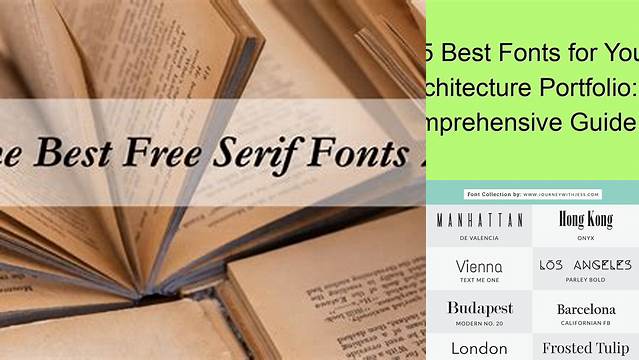
Best Modern Fonts To Elevate Your Designs
Hey guys! Are you on the hunt for the best modern fonts to elevate your designs? Look no further! In today's design landscape, typography plays a crucial role in conveying your message and creating a lasting impression. Choosing the right font can make or break your project, whether it's a website, branding materials, or a presentation. This guide dives deep into the world of modern fonts, exploring various styles, trends, and practical tips to help you make the perfect choice. We'll cover everything from sans-serif to serif fonts, display fonts to script fonts, and even provide real-world examples to inspire your next project. So, buckle up and get ready to discover the best modern fonts that will transform your designs!
When we talk about best modern fonts, we're not just talking about what's popular right now. We're talking about fonts that embody the characteristics of modern design: clean lines, geometric shapes, and a sense of simplicity and elegance. These fonts often have a minimalist aesthetic, making them incredibly versatile and suitable for a wide range of applications. Think about brands like Apple, Google, and Nike – their typography choices reflect a modern sensibility that's both functional and visually appealing. The fonts they use are not only legible but also contribute to the overall brand identity, conveying a sense of innovation and sophistication. That’s the power of a well-chosen modern font! Choosing the right font is more than just picking something that looks good. It's about understanding the message you want to convey and selecting a typeface that aligns with your brand’s personality. For example, a tech startup might opt for a clean, sans-serif font like Montserrat or Open Sans to project a modern and approachable image. On the other hand, a luxury brand might choose a more elegant serif font like Playfair Display to evoke a sense of sophistication and tradition. Understanding the nuances of different font styles is crucial to making informed decisions that will enhance your design and resonate with your target audience. So, let’s dive deeper into the world of modern typography and explore the various categories and examples that will help you elevate your designs.
What Makes a Font "Modern?"
So, what exactly makes a font "modern?" It's a great question, guys, and the answer is a bit nuanced. Modern fonts generally embody characteristics that reflect contemporary design principles, such as simplicity, functionality, and a clean aesthetic. Unlike traditional fonts that might have ornate details and elaborate serifs, modern fonts often feature clean lines, geometric shapes, and a minimalist approach. This isn't to say that all modern fonts look the same – there's a wide variety of styles within the modern category, each with its unique personality and application.
One key characteristic of modern fonts is their emphasis on legibility. In today's digital age, where content is consumed across various screens and devices, readability is paramount. Modern fonts are designed to be easily readable at different sizes and in different contexts, whether it's on a website, a mobile app, or a printed brochure. This focus on functionality is a hallmark of modern design, where form follows function. Another aspect of modern fonts is their versatility. The best modern fonts are adaptable and can be used in a wide range of applications, from branding and marketing materials to editorial design and user interfaces. They often come in various weights and styles, allowing designers to create visual hierarchy and add emphasis where needed. For example, a font family like Roboto or Lato offers multiple weights, from thin to black, making it ideal for creating a consistent and cohesive design system. Furthermore, modern fonts often embrace technological advancements. Many modern typefaces are optimized for screen display, with features like hinting and subpixel rendering that ensure crisp and clear text even on low-resolution screens. Type designers are also experimenting with variable fonts, which allow for greater flexibility and customization in font styles. Variable fonts can adapt to different design needs, offering a wide range of weights, widths, and other parameters within a single font file. This not only reduces file sizes but also provides designers with more control over typography. Ultimately, what makes a font modern is its ability to communicate effectively in today’s world. It’s about balancing aesthetics with functionality and creating typefaces that are both visually appealing and highly legible. So, whether you’re designing a website, creating a logo, or crafting marketing materials, understanding the characteristics of modern fonts will help you make informed choices that elevate your design and resonate with your audience.
Popular Categories of Modern Fonts
Alright, let's dive into the popular categories of modern fonts, guys! Knowing these categories will help you narrow down your choices and find the perfect typeface for your project. We'll cover the main categories, including sans-serif, serif, display, and script fonts, each with its unique characteristics and best uses.
Sans-serif fonts are arguably the most popular category of modern fonts. The term "sans-serif" means "without serifs," referring to the small decorative strokes at the end of letterforms that are absent in these fonts. Sans-serif fonts are known for their clean lines, geometric shapes, and overall simplicity, making them highly legible and versatile. They are often used for body text, headlines, and user interfaces, and are a staple in modern design. Some of the best modern fonts in the sans-serif category include Helvetica, Arial, Open Sans, Roboto, and Montserrat. Helvetica, for example, is a classic sans-serif font that has been used extensively in corporate branding and editorial design for decades. Its neutral and clean appearance makes it highly adaptable to various contexts. Open Sans, on the other hand, is a humanist sans-serif font designed by Steve Matteson, optimized for readability across print, web, and mobile interfaces. Its open forms and neutral-yet-friendly appearance make it a popular choice for websites and apps. Roboto, a font family developed by Google, is another excellent example of a modern sans-serif typeface. It features a dual nature, with geometric forms and friendly curves, making it suitable for both body text and headlines. Montserrat, designed by Julieta Ulanovsky, is a geometric sans-serif font inspired by the urban typography of Buenos Aires. Its bold and clean letterforms make it a great choice for logos, headlines, and branding materials. When choosing a sans-serif font, consider the overall tone and message of your design. If you’re aiming for a clean, minimalist look, a geometric sans-serif like Futura or Gotham might be a good choice. If you want a more friendly and approachable feel, a humanist sans-serif like Open Sans or Lato might be more suitable. And if you need a versatile font that works well in a variety of applications, a classic like Helvetica or Arial is always a reliable option. In short, sans-serif fonts are a cornerstone of modern typography, offering a wide range of styles and personalities to suit any design need.
Next up, we have serif fonts! These typefaces are characterized by the small decorative strokes, or serifs, at the ends of the letterforms. While sans-serif fonts are often associated with a modern, minimalist aesthetic, serif fonts can also be incredibly modern, particularly when used in innovative and contemporary ways. The best modern fonts in the serif category often blend traditional elements with a modern sensibility, resulting in elegant and sophisticated typefaces. Serif fonts are often used in editorial design, branding, and print materials, where their classic appearance can add a touch of sophistication. Some popular modern serif fonts include Playfair Display, Merriweather, and Lora. Playfair Display, designed by Claus Eggers Sørensen, is an elegant serif font with a high contrast and delicate serifs. It’s often used for headlines, titles, and other display purposes, adding a touch of luxury and refinement to any design. Merriweather, designed by Sorkin Type Co, is a serif font family created specifically for on-screen reading. Its slightly condensed letterforms and sturdy serifs make it highly legible in digital environments, making it a great choice for body text on websites and blogs. Lora, designed by Olga Karpushina, is a well-balanced serif font with roots in calligraphy. Its contemporary feel makes it versatile enough to be used in both body text and headlines. When choosing a serif font, consider the overall tone and style of your project. A high-contrast serif like Playfair Display can be perfect for creating a sophisticated and elegant look, while a more robust serif like Merriweather is better suited for body text that needs to be highly readable. Modern serif fonts can also be effectively paired with sans-serif fonts to create a visual hierarchy and add interest to a design. For example, you might use a serif font for your headlines and a sans-serif font for your body text, or vice versa. The key is to find fonts that complement each other in terms of style and weight. So, while sans-serif fonts often get the spotlight in modern design, serif fonts have a lot to offer as well. By understanding the nuances of different serif styles, you can choose typefaces that add character, elegance, and readability to your projects.
Display Fonts
Let's move on to display fonts, guys! These are the attention-grabbers of the font world. Display fonts are designed to be used at larger sizes, such as in headlines, titles, and logos. They often have unique and distinctive characteristics that make them stand out and create a strong visual impact. The best modern fonts in the display category can range from bold and geometric to elegant and script-like, offering a wide variety of styles to suit any design project. Unlike body text fonts, which prioritize readability, display fonts prioritize visual appeal and personality. They are meant to make a statement and capture the viewer's attention. Some popular modern display fonts include Bebas Neue, Montserrat Alternates, and Oswald. Bebas Neue is a sleek and modern sans-serif display font that has become incredibly popular for headlines and posters. Its tall and narrow letterforms give it a contemporary feel, making it a great choice for projects that need to convey a sense of modernity and sophistication. Montserrat Alternates, a variation of the popular Montserrat font, offers a more stylized and distinctive look. It includes alternate glyphs and characters that add personality and visual interest, making it ideal for branding and logo design. Oswald, designed by Vernon Adams, is a reworked classic sans-serif typeface that was initially designed for digital screens. Its condensed letterforms and bold appearance make it a great choice for headlines and titles, particularly in web design. When choosing a display font, consider the overall message and tone of your design. A bold and geometric display font might be perfect for a tech company or a modern brand, while a more elegant and script-like display font could be better suited for a luxury brand or a creative project. It's also important to ensure that your display font pairs well with your body text font. The two should complement each other, creating a cohesive and balanced design. In general, display fonts are a crucial tool for creating visual impact and grabbing attention. By choosing the right display font, you can add personality, style, and memorability to your designs.
Script Fonts
And finally, let’s talk about script fonts! Script fonts are designed to mimic handwriting, giving your designs a personal and elegant touch. These fonts come in a variety of styles, from formal and calligraphic to casual and playful. The best modern fonts in the script category can add a touch of sophistication, warmth, or creativity to your projects, making them a versatile choice for a wide range of applications. Script fonts are often used in wedding invitations, greeting cards, logos, and branding materials, where their elegant and handcrafted appearance can create a unique and memorable impression. However, it’s important to use script fonts sparingly and in the right context, as they can sometimes be difficult to read if overused. Some popular modern script fonts include Pacifico, Brush Script MT, and Lobster. Pacifico, designed by Vernon Adams, is a casual and friendly script font inspired by the American surf culture of the 1950s. Its flowing and rounded letterforms give it a playful and approachable feel, making it a great choice for logos, posters, and social media graphics. Brush Script MT is a classic script font that mimics the look of brush lettering. Its bold and dynamic strokes make it a popular choice for headlines, titles, and invitations. Lobster, designed by Impallari Type, is a bold and condensed script font with a vintage feel. Its unique and distinctive letterforms make it a great choice for branding and logo design, particularly for projects that aim to evoke a sense of nostalgia or retro style. When choosing a script font, consider the overall tone and message of your design. A formal and elegant script font might be perfect for a wedding invitation or a luxury brand, while a more casual and playful script font could be better suited for a greeting card or a children’s book. It’s also important to ensure that your script font is legible, particularly at smaller sizes. Avoid using script fonts for large blocks of text, as they can become difficult to read. In general, script fonts are a powerful tool for adding personality and style to your designs. By choosing the right script font and using it effectively, you can create unique and memorable designs that stand out from the crowd.
Top Modern Font Pairings
Okay, guys, now that we've explored different categories of modern fonts, let's talk about font pairings! Choosing the right font combination can significantly enhance the visual appeal and readability of your designs. Pairing fonts effectively involves finding typefaces that complement each other, creating a harmonious and balanced look. A good font pairing can also help establish visual hierarchy and guide the reader's eye through your design. One of the most common approaches to font pairing is to combine a sans-serif font with a serif font. This creates a contrast that is both visually appealing and functional. For example, you might pair a clean sans-serif font like Open Sans with an elegant serif font like Playfair Display. The sans-serif font can be used for body text, while the serif font can be used for headlines and titles, adding a touch of sophistication and visual interest. Another popular pairing strategy is to combine different weights and styles within the same font family. Many modern font families come in multiple weights, from light to bold, as well as different styles, such as italic and condensed. Using these variations can create visual hierarchy and add emphasis without introducing additional typefaces. For instance, you might use Roboto Regular for body text and Roboto Bold for headlines, creating a cohesive and professional look. Pairing fonts from different categories can also be effective, but it requires a bit more finesse. For example, you might pair a bold display font like Bebas Neue with a clean sans-serif font like Montserrat. The display font will grab attention, while the sans-serif font will provide readability and balance. When pairing fonts, it’s important to consider the overall tone and message of your design. A formal design might benefit from a more traditional pairing, such as a serif font with a classic sans-serif. A modern or playful design might benefit from a more unconventional pairing, such as a bold display font with a script font. It's also crucial to ensure that your font pairing is legible and easy to read. Avoid pairing fonts that are too similar in style, as this can create a visually cluttered and confusing look. Instead, aim for contrast and balance, creating a harmonious and effective typographic composition. Here are a few popular modern font pairings to get you started:
- Open Sans (Sans-Serif) + Playfair Display (Serif)
- Roboto (Sans-Serif) + Roboto Slab (Serif)
- Montserrat (Sans-Serif) + Raleway (Sans-Serif)
- Bebas Neue (Display) + Lato (Sans-Serif)
- Poppins (Sans-Serif) + Merriweather (Serif)
Tips for Choosing the Best Modern Fonts
Alright, guys, let's wrap things up with some essential tips for choosing the best modern fonts for your projects. Selecting the right typeface is crucial for conveying your message effectively and creating a visually appealing design. Here are some key considerations to keep in mind:
- Understand Your Brand and Audience: Before you start browsing through font libraries, take some time to define your brand’s personality and target audience. What kind of message do you want to convey? Are you aiming for a modern, sophisticated look, or a more playful and approachable feel? Consider your audience’s preferences and expectations. A font that resonates with a tech-savvy audience might not be the best choice for a more traditional demographic.
- Consider Legibility and Readability: Legibility refers to the ease with which individual letterforms can be distinguished, while readability refers to how easily a block of text can be read. Both are crucial for effective communication. Choose fonts that are clear and easy to read, particularly for body text. Avoid overly stylized or decorative fonts that can strain the eyes.
- Think About Hierarchy and Visual Balance: Typography plays a vital role in establishing visual hierarchy and guiding the reader’s eye through your design. Use different font sizes, weights, and styles to create contrast and emphasis. For example, you might use a bold display font for headlines and a lighter sans-serif font for body text. Ensure that your font choices create a balanced and harmonious look.
- Pay Attention to Font Licensing: Font licenses dictate how you can use a particular typeface. Some fonts are free for personal and commercial use, while others require a license fee. Make sure you understand the licensing terms before using a font in your projects, especially for commercial purposes. There are many excellent free font resources available, such as Google Fonts and Font Squirrel, which offer a wide variety of high-quality typefaces.
- Test Your Font Choices: Before finalizing your font selections, test them in different contexts and at different sizes. See how they look on various screens and in print. Pay attention to the spacing, kerning, and overall appearance of the text. It’s often helpful to create mockups or prototypes to get a better sense of how your font choices will look in the final design.
- Don't Overdo It: While it’s tempting to experiment with multiple fonts, it’s generally best to limit yourself to two or three typefaces per project. Too many fonts can create a cluttered and confusing look. Focus on choosing a few high-quality fonts that complement each other and work well together.
- Stay Updated on Font Trends: Typography trends evolve over time, so it’s a good idea to stay informed about the latest styles and typefaces. Follow design blogs, attend webinars, and explore online font libraries to discover new and innovative fonts. However, remember that timelessness is also important. Choose fonts that will remain relevant and effective in the long run.
By following these tips, you can confidently choose the best modern fonts for your projects and create designs that are both visually appealing and highly effective. Happy designing, guys!
So, there you have it, guys! A comprehensive guide to navigating the world of best modern fonts. We've explored the characteristics that define modern fonts, delved into popular categories like sans-serif, serif, display, and script, discussed effective font pairings, and shared essential tips for choosing the right typefaces for your projects. Typography is a powerful tool in design, and by understanding the nuances of modern fonts, you can elevate your work and create impactful visual communications. Remember, the best modern fonts are those that align with your brand's personality, effectively convey your message, and resonate with your target audience. Whether you're designing a website, creating a logo, or crafting marketing materials, the right font choice can make all the difference. Stay curious, keep experimenting, and embrace the ever-evolving world of typography. With the knowledge and insights shared in this guide, you're well-equipped to choose the best modern fonts that will help your designs shine. Happy designing, and until next time, keep creating amazing things!